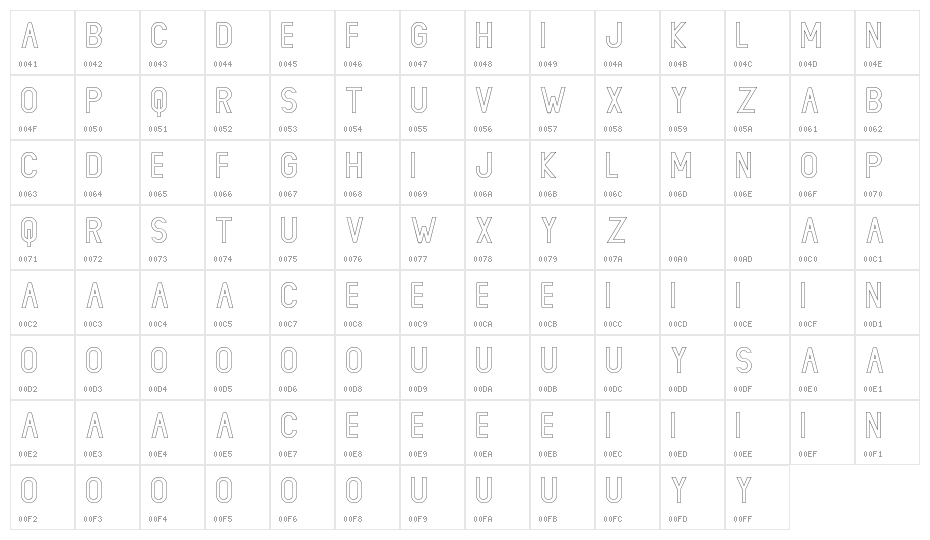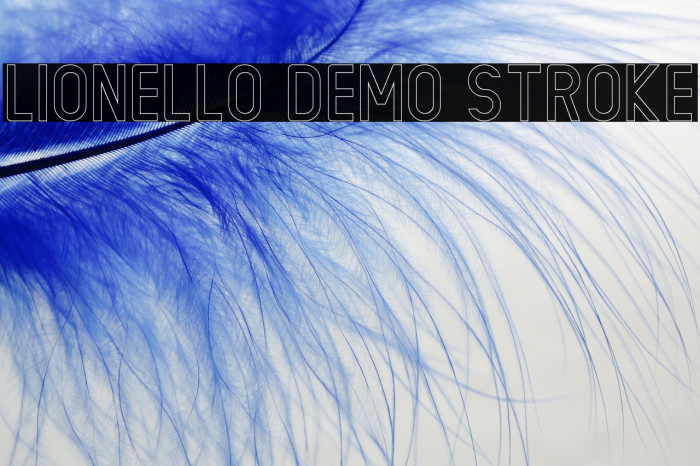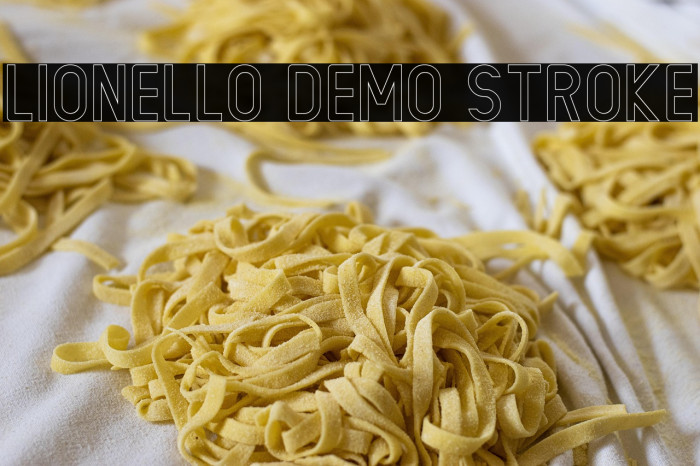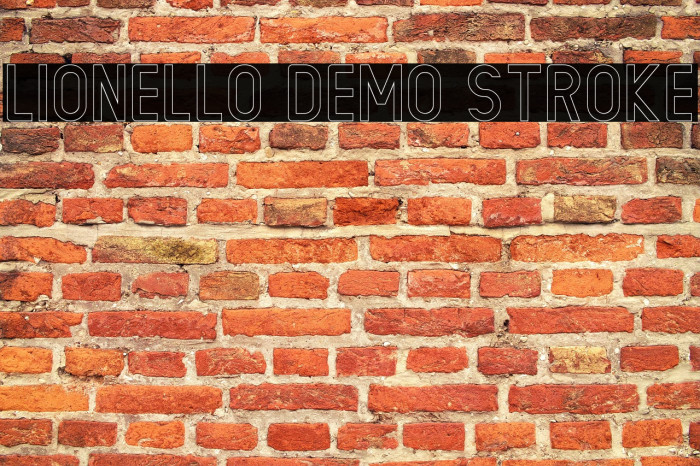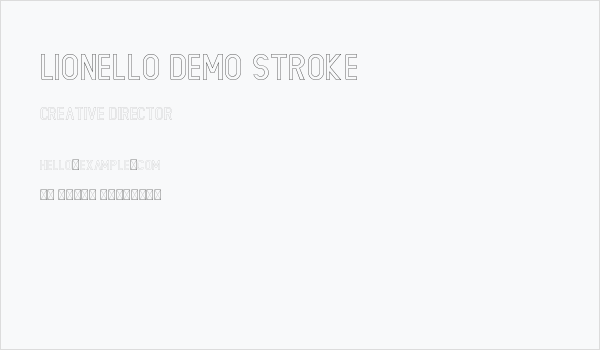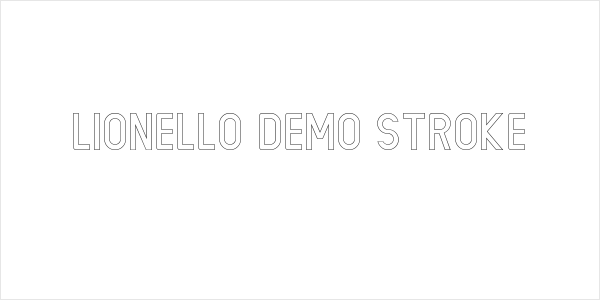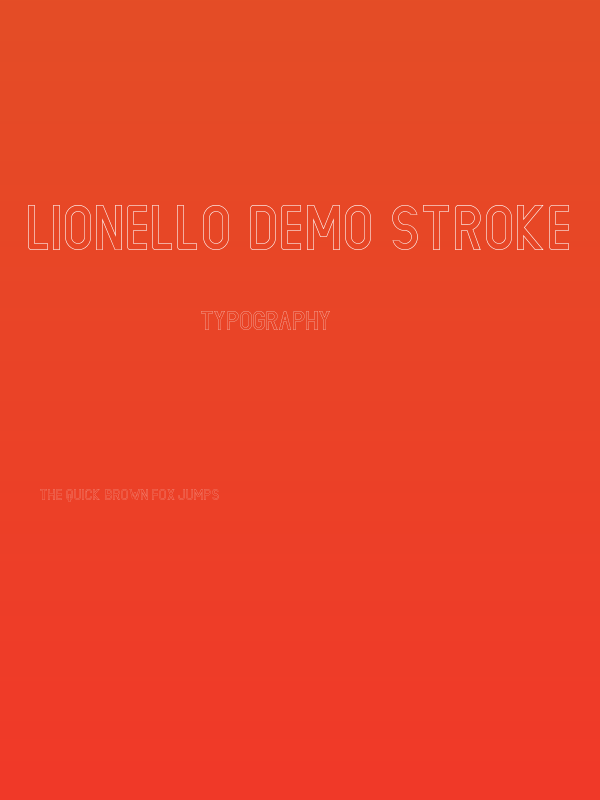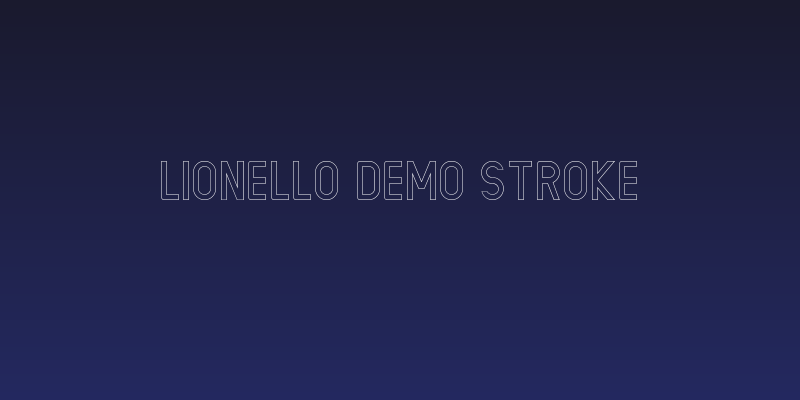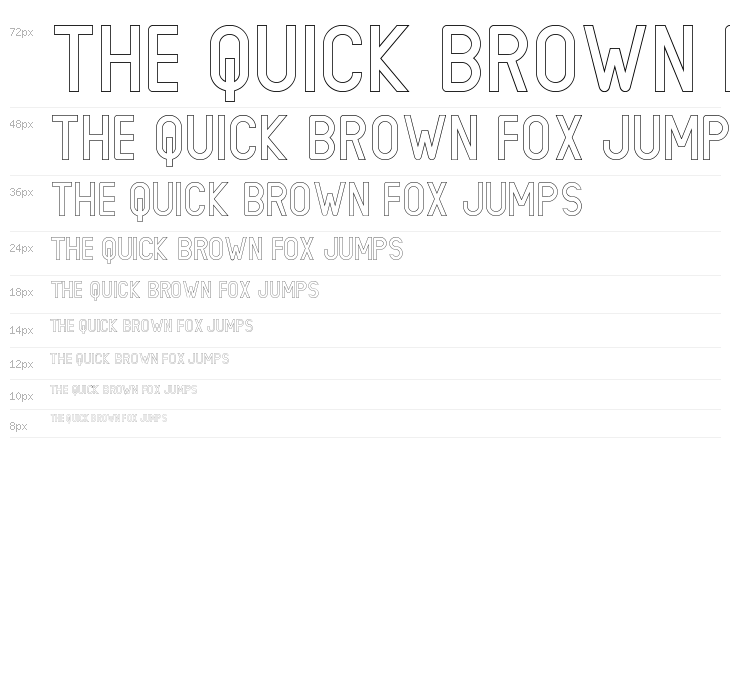
LIONELLO DEMO Stroke Font
LIONELLO DEMO Stroke Description
This font features a modern, geometric design with a distinct outline style. Each character is crafted with precision, showcasing clean lines and a uniform stroke width that gives it a contemporary and minimalist appearance. The uppercase letters are bold and commanding, while the lowercase letters maintain the same structured form, ensuring consistency across all text. The numerals and special characters are designed to match the overall aesthetic, making this font versatile for various applications. Its open and airy design allows for excellent readability, even at smaller sizes, while the outlined nature adds a unique visual interest that can enhance any design project.
| Proposed Projects | Ideal for branding, posters, headlines, and digital media where a modern and distinctive look is desired. |